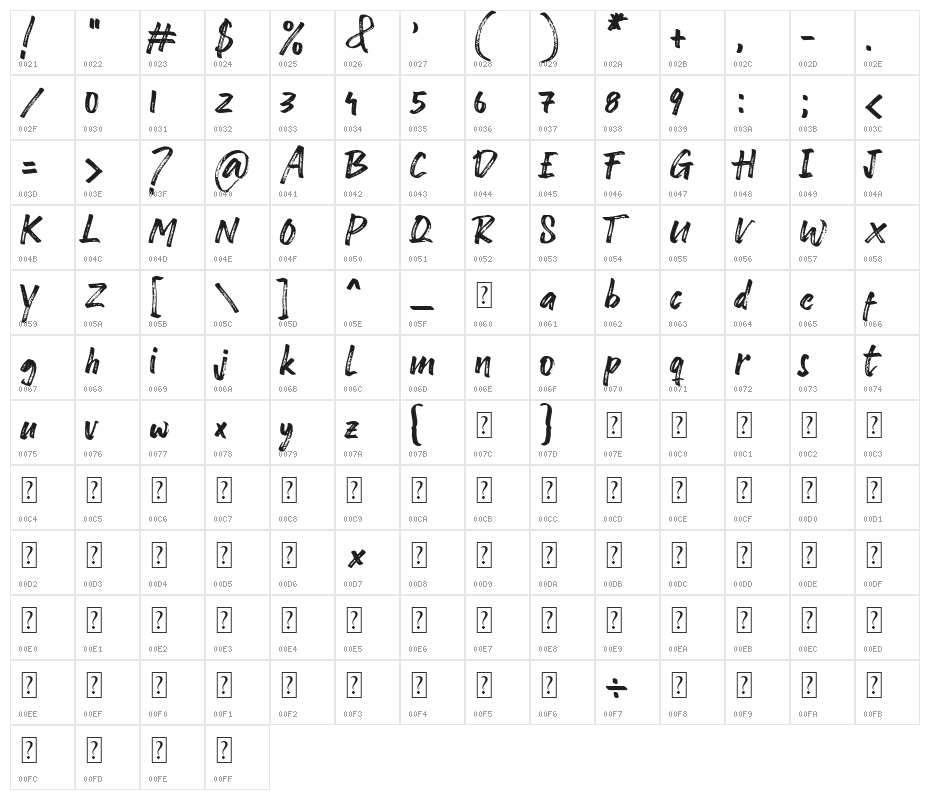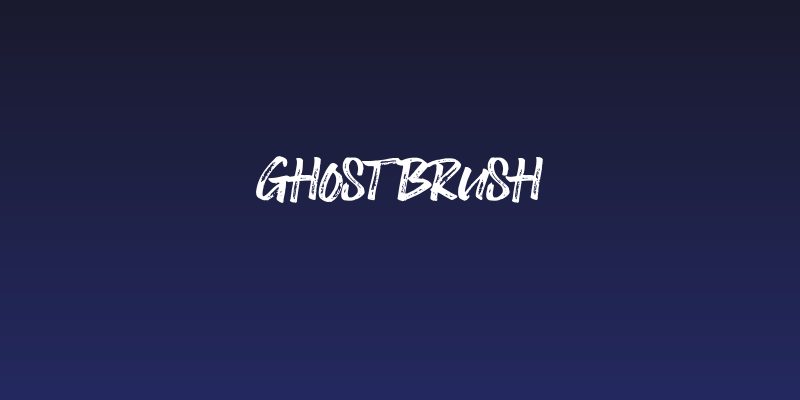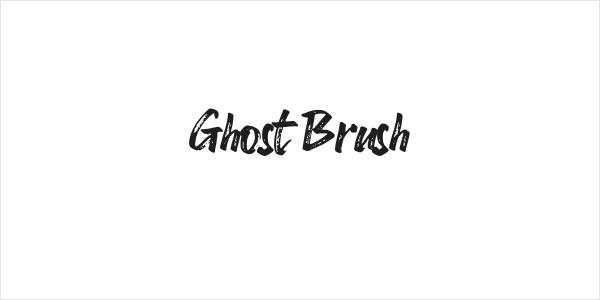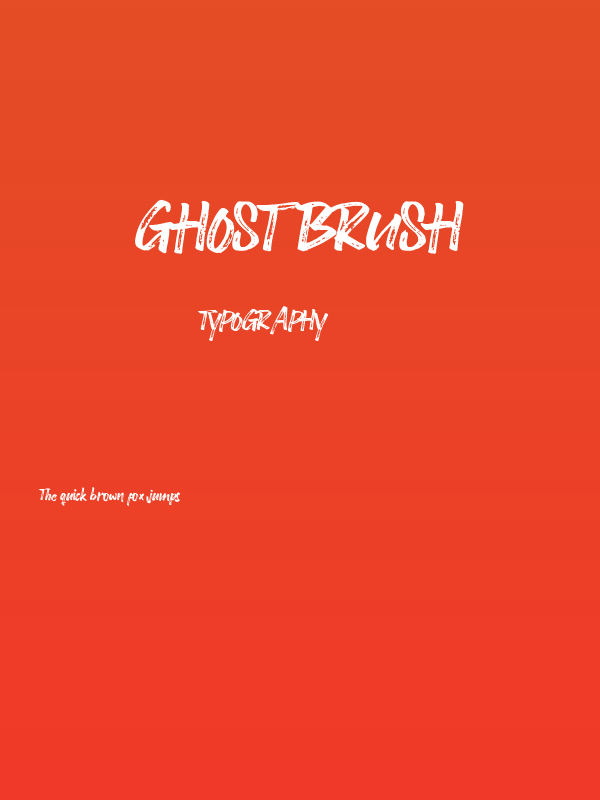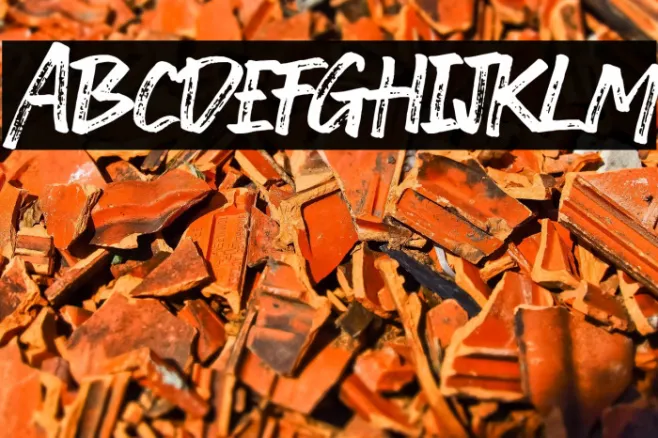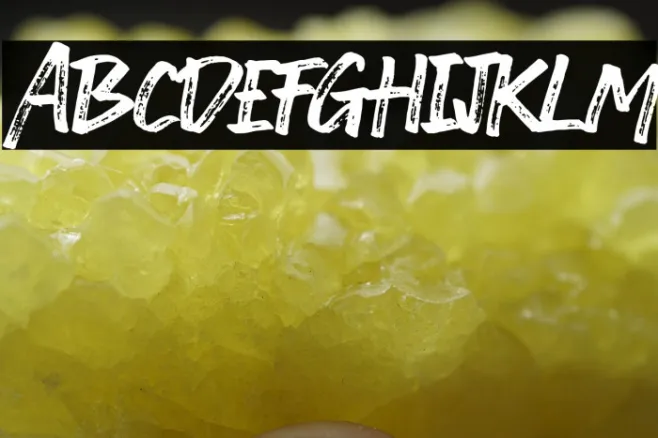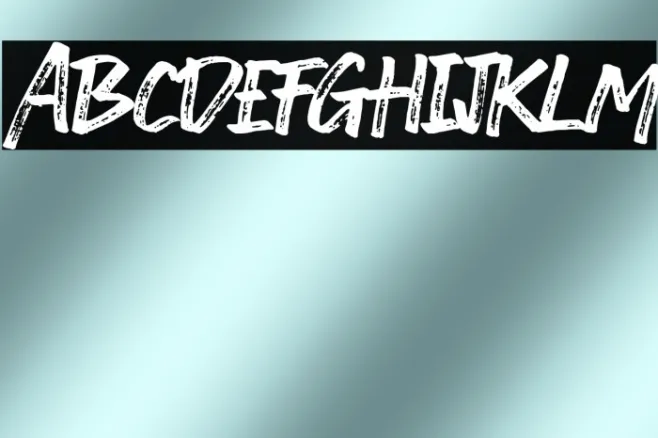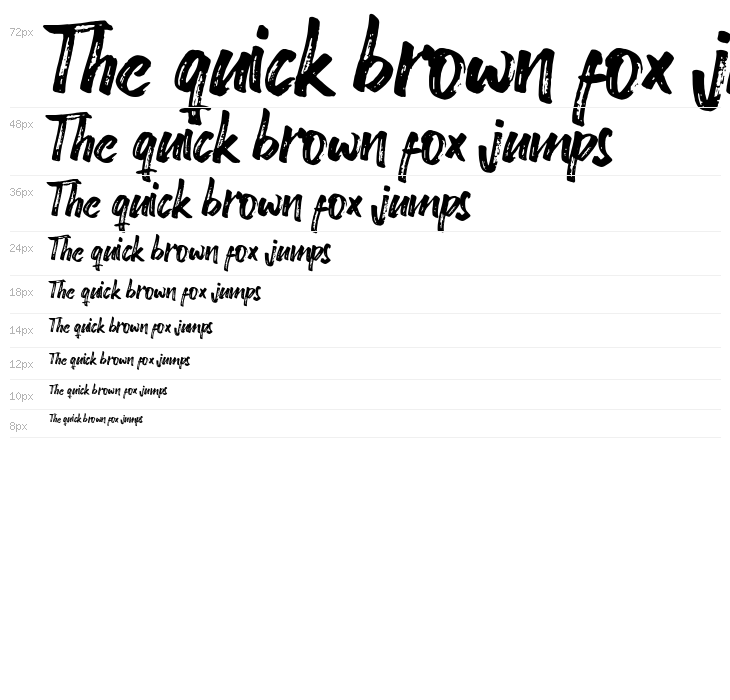
Ghost Brush Font
Ghost Brush Description
This font features a bold and expressive brush style, characterized by its dynamic and energetic strokes. The letters have a hand-painted appearance, with varying thickness and a slightly rough texture that adds a sense of movement and spontaneity. The uppercase and lowercase letters maintain a consistent style, while the numbers and special characters blend seamlessly with the overall design. This font is ideal for projects that require a personal and artistic touch, offering a unique and eye-catching aesthetic.
| Proposed Projects | Perfect for posters, branding, social media graphics, and creative projects that require a bold, artistic flair. |